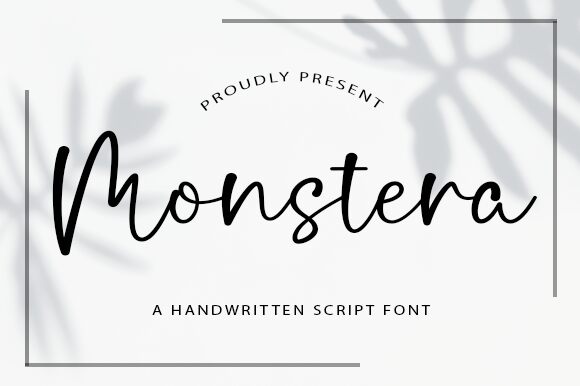
Monstera
Monstera, designed by Wahyu Studio, is a semi-light handwritten font that exudes a sense of personal touch and elegance. Its fluid and dynamic strokes are reminiscent of quick ink on paper, offering a blend of casual charm with stylistic sophistication. This font's individual character shapes are crafted to convey warmth and approachability, making it an excellent choice for invitations, branding, advertising, and any project that requires a humanistic flair.
The semi-light weight of Monstera contributes to its versatility in both digital and print mediums, providing enough substance for readability while maintaining an airy presence on the page. The aesthetic appeal lies in its ability to mimic genuine handwriting with finesse – each letter appears as though it were thoughtfully scribed by hand.
Monstera's suitability stretches across a wide range of creative projects; from editorial designs that require an intimate feel to social media graphics that demand attention with their authentic look. Embrace the distinctiveness of Monstera to add personality and character to your designs.